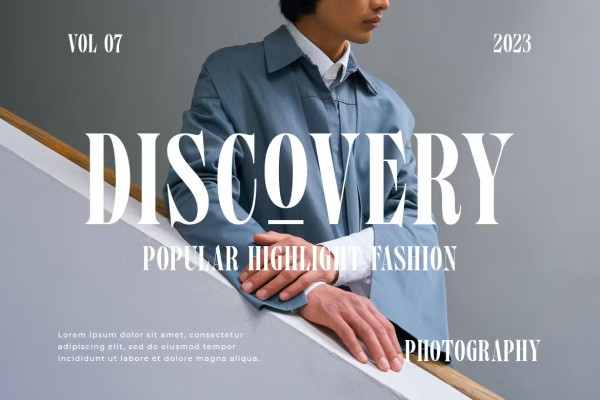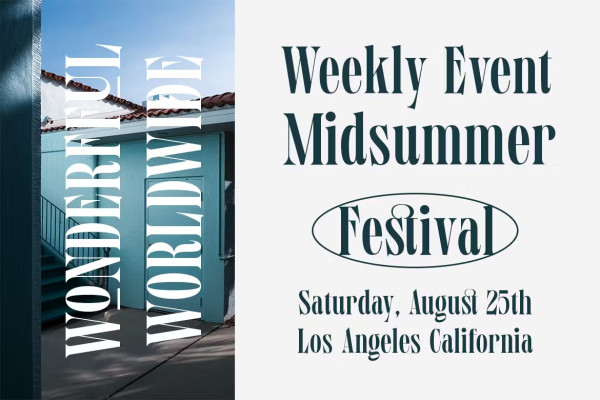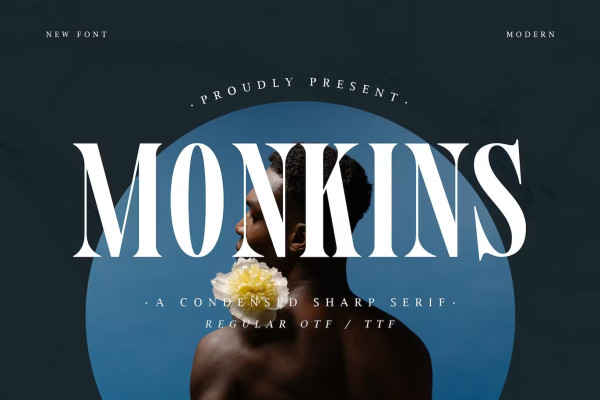
Monkins Font
Monkins Font – a condensed sharp serif font that captivates with its sleek and sophisticated style. With its clean and defined letterforms, “Monkins” embodies a sense of modernity and professionalism. Each character is meticulously crafted to provide sharp edges and refined details, making it ideal for editorial designs, branding projects, headlines, and more.
Embrace the versatility of “Monkins” as it effortlessly elevates your designs. Whether you’re working on fashion magazines, luxury branding, minimalistic websites, or corporate materials, this font will make a lasting impression with its condensed and sharp serif style.